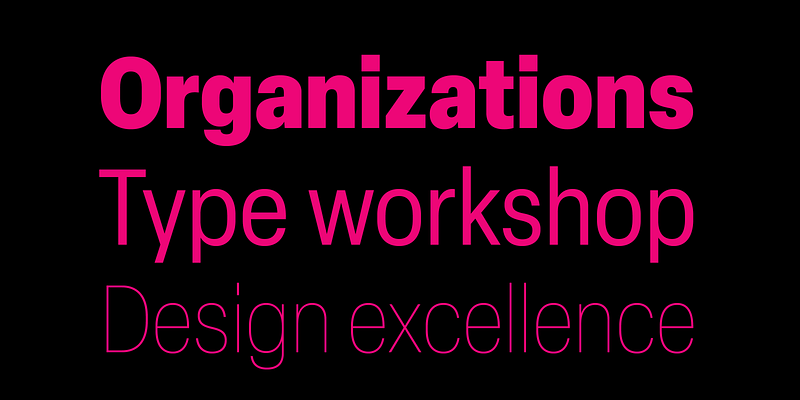
Elza Narrow Font Free Download
Elza Narrow Font Free Download is a sleek and space-saving sans-serif typeface with a modern, minimalist aesthetic. Designed for efficient use in tight layouts, this font is ideal for editorial design, branding, packaging, mobile interfaces, and anywhere you need to communicate clearly without sacrificing style.
Elza Narrow Font Free Download features clean lines, condensed proportions, and smooth curves that make it highly legible while maintaining a sharp, contemporary look. It’s especially useful for projects with limited horizontal space—like labels, app UIs, navigation menus, and vertical text compositions.
With multiple weights and stylistic consistency, Elza Narrow adapts well across headline and body settings, and pairs beautifully with wide display fonts or elegant serifs for visual contrast.